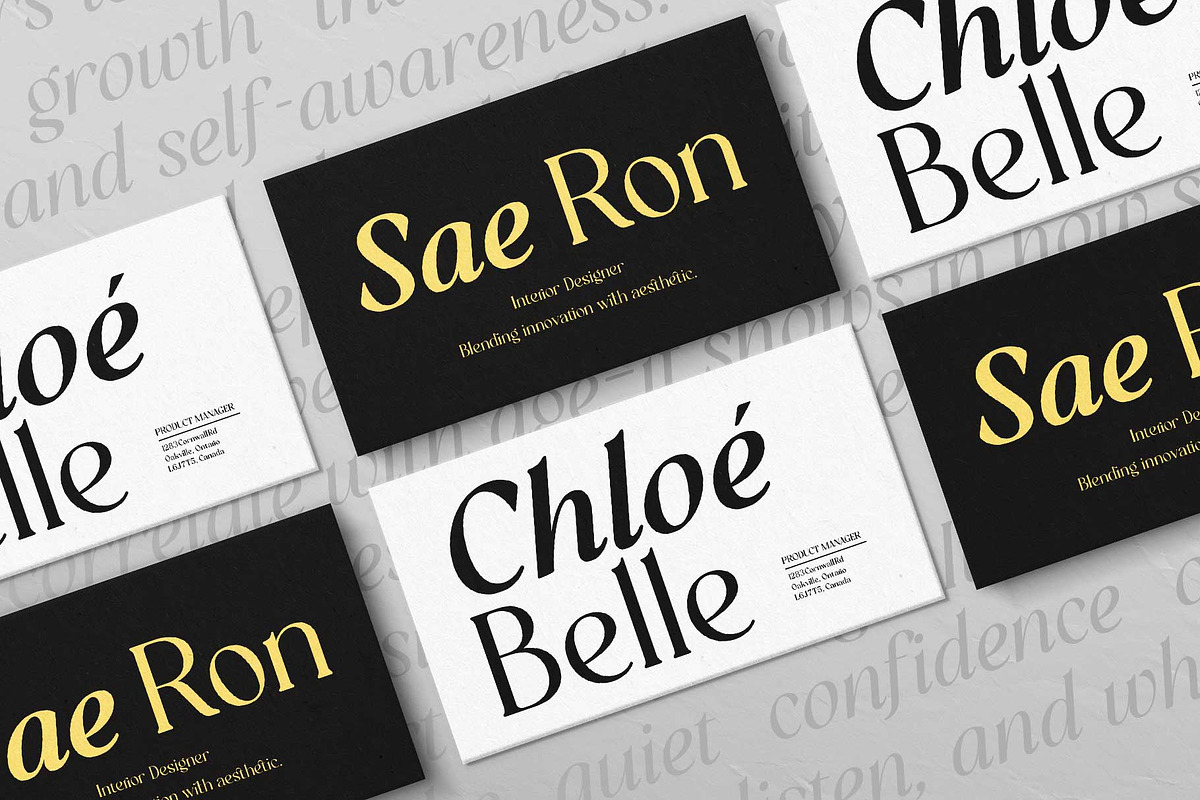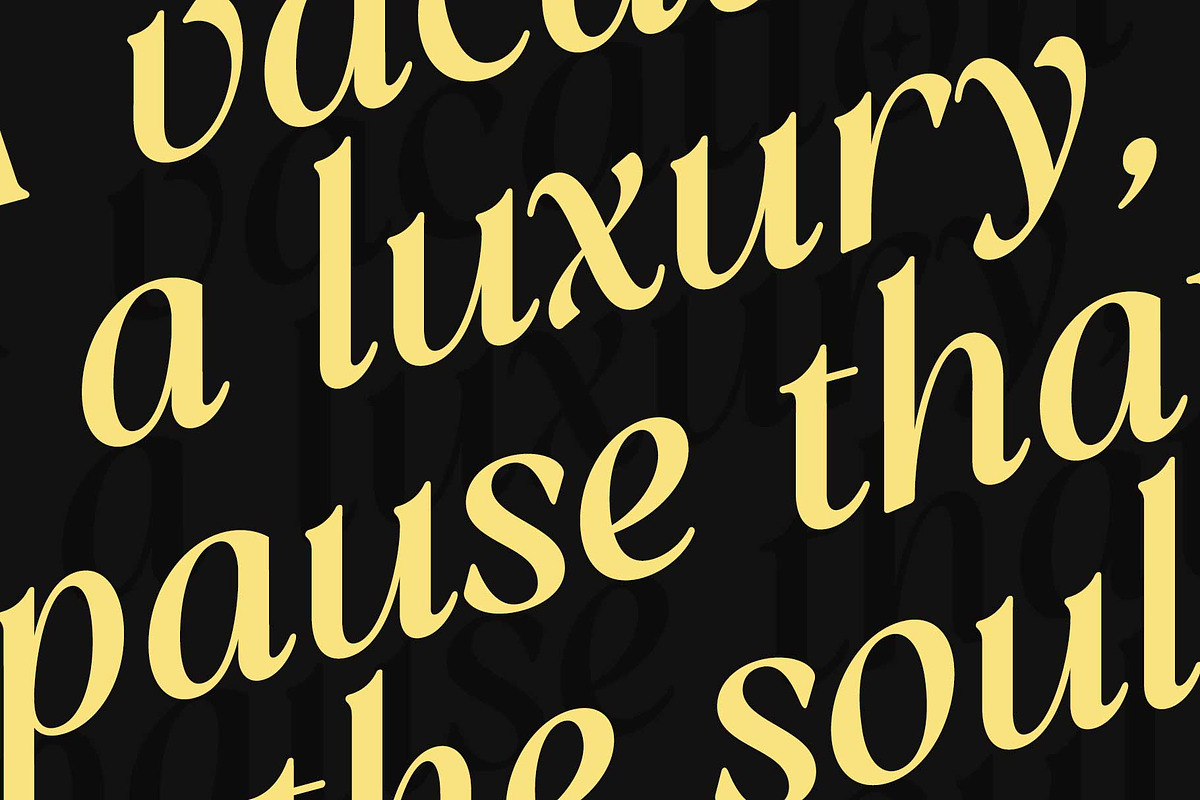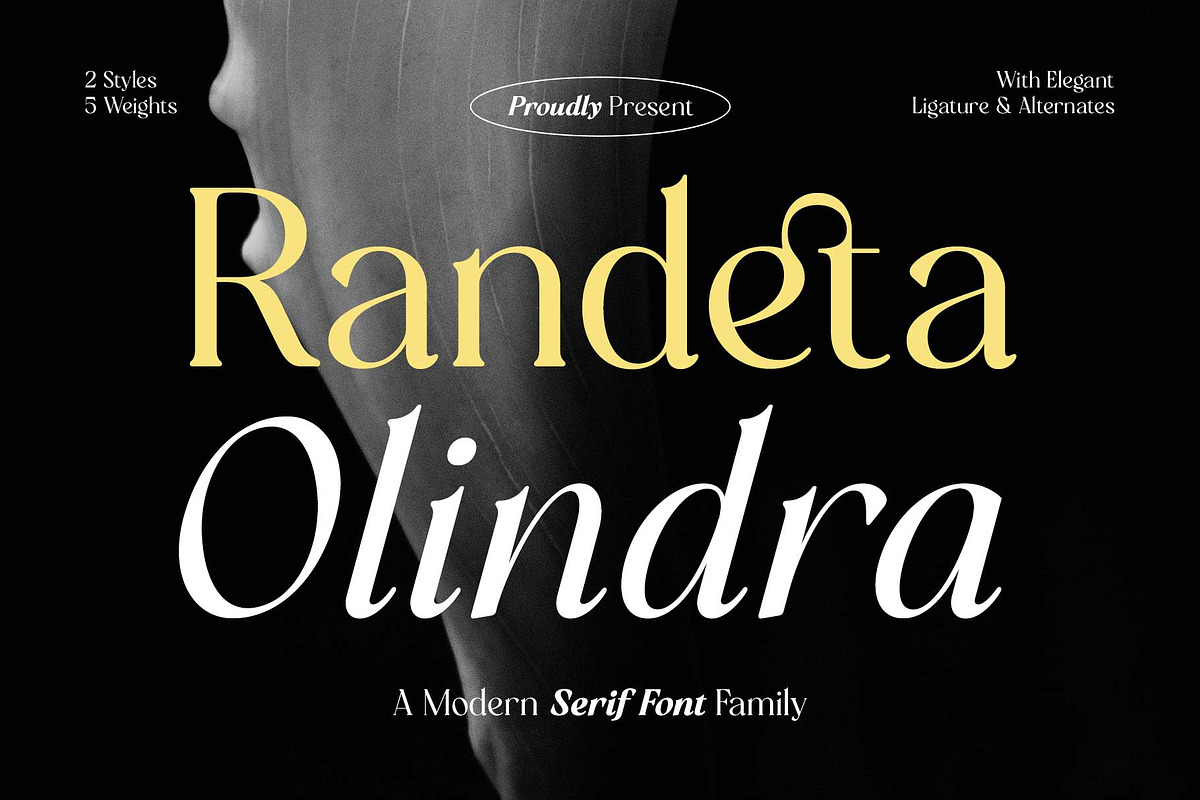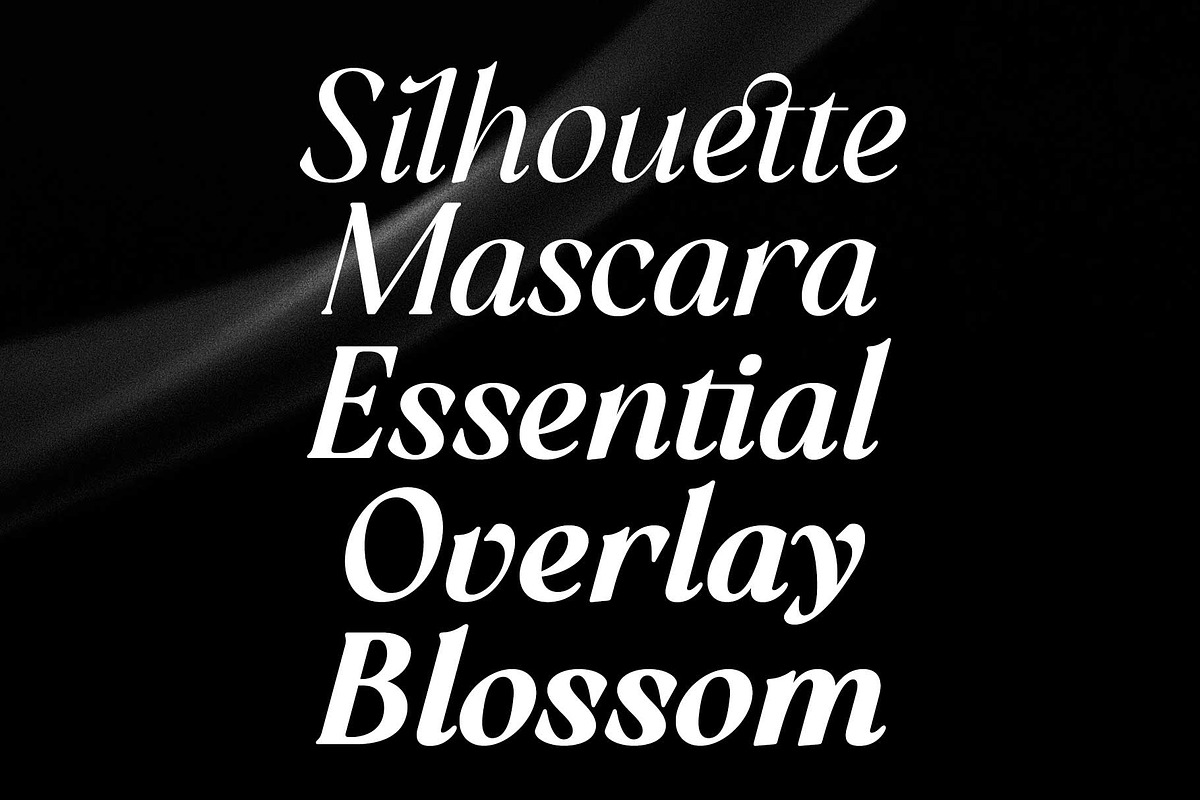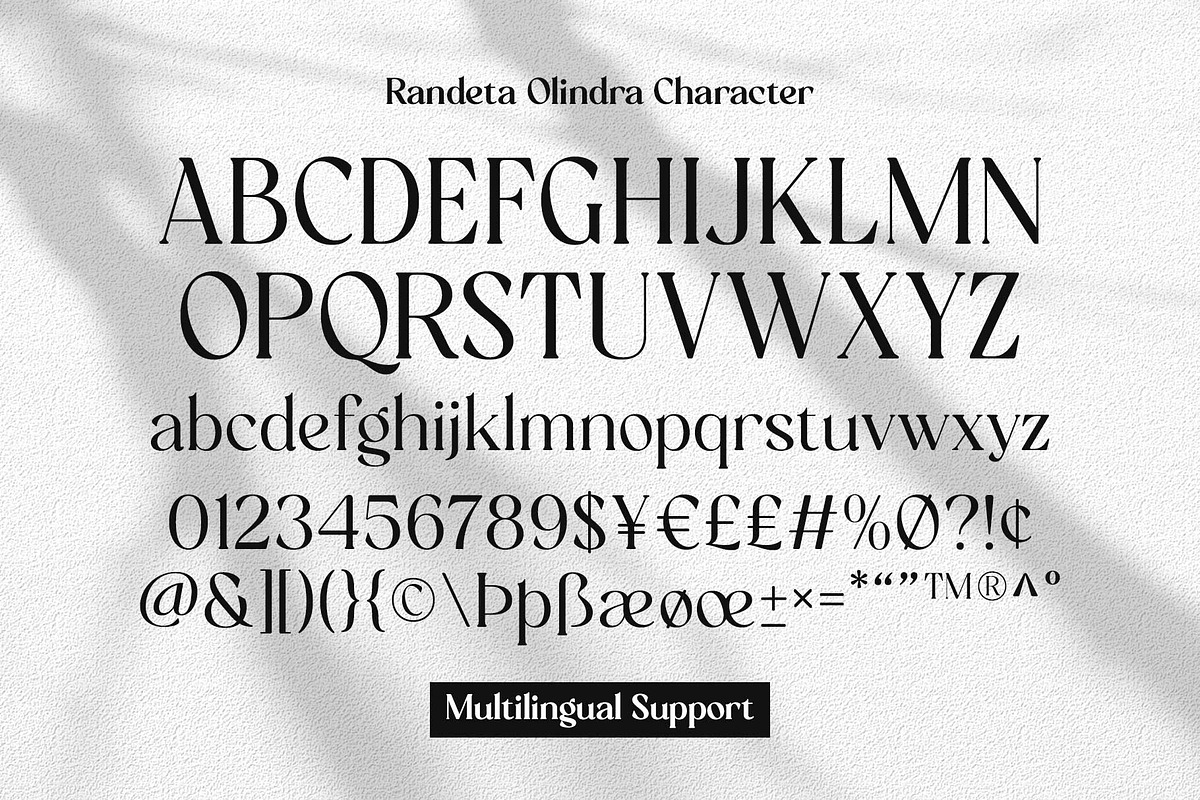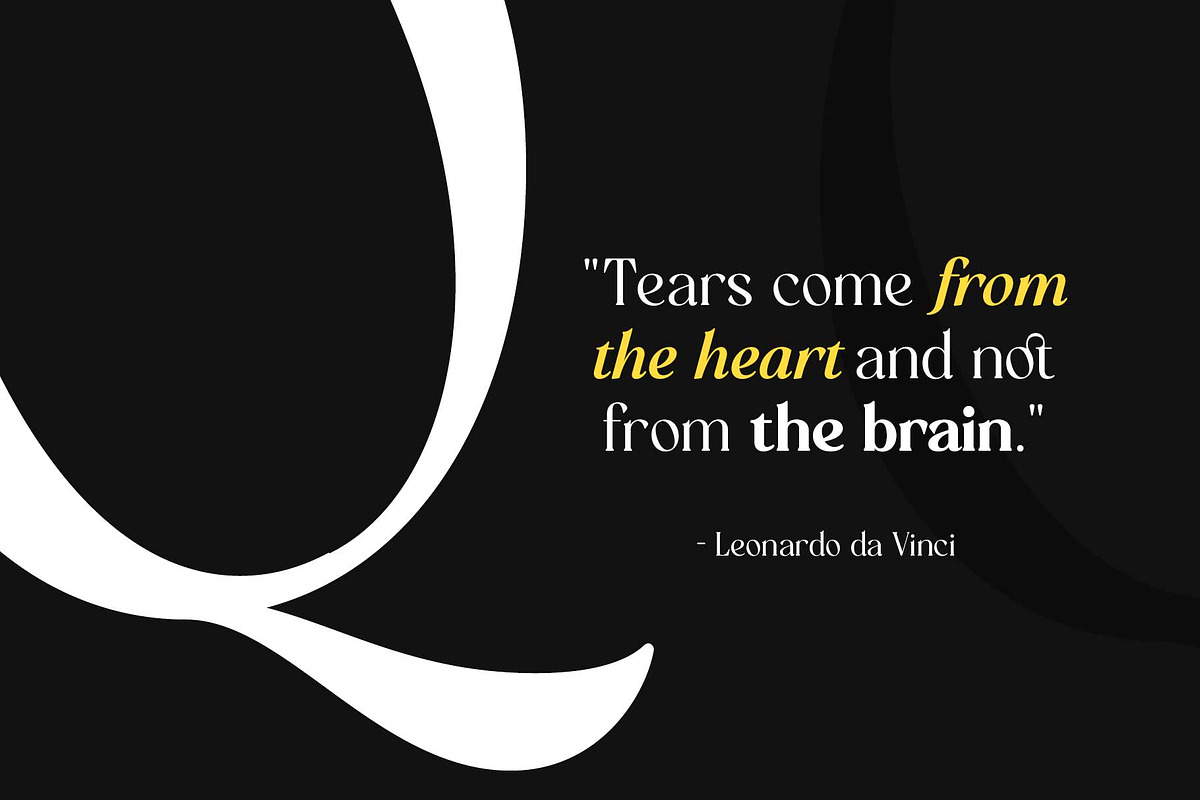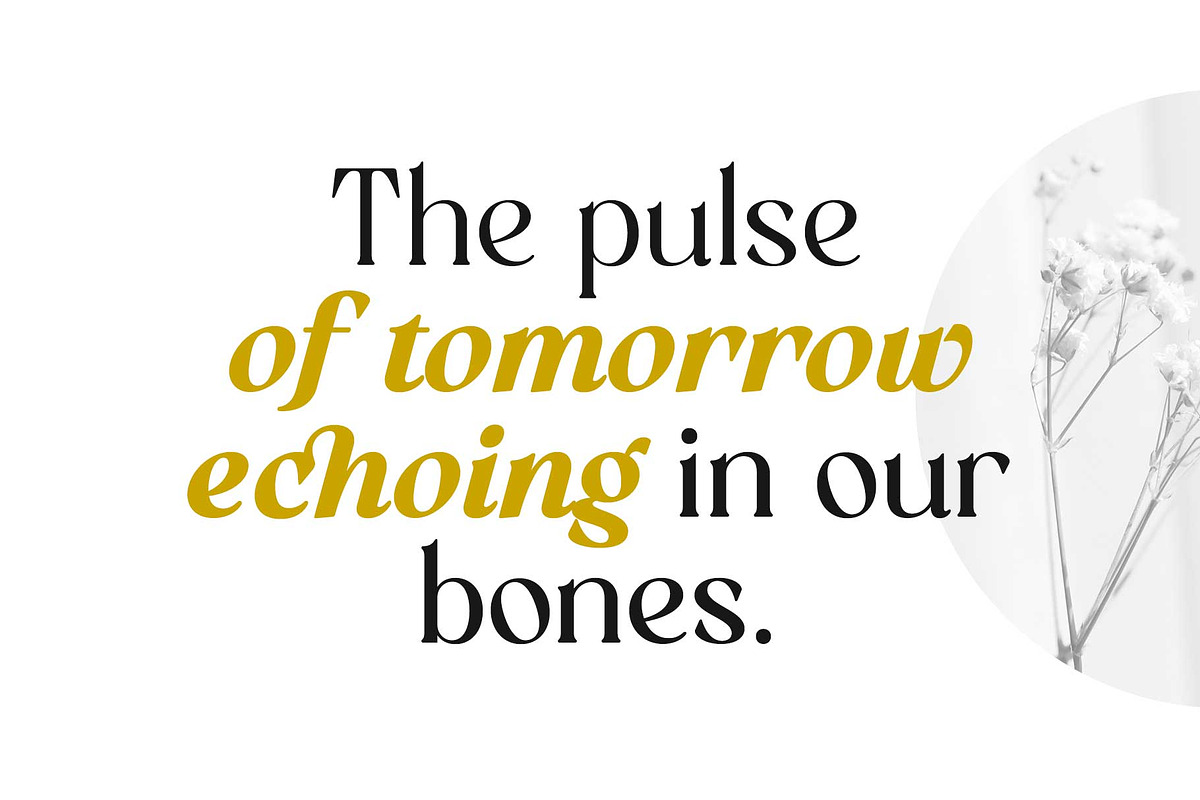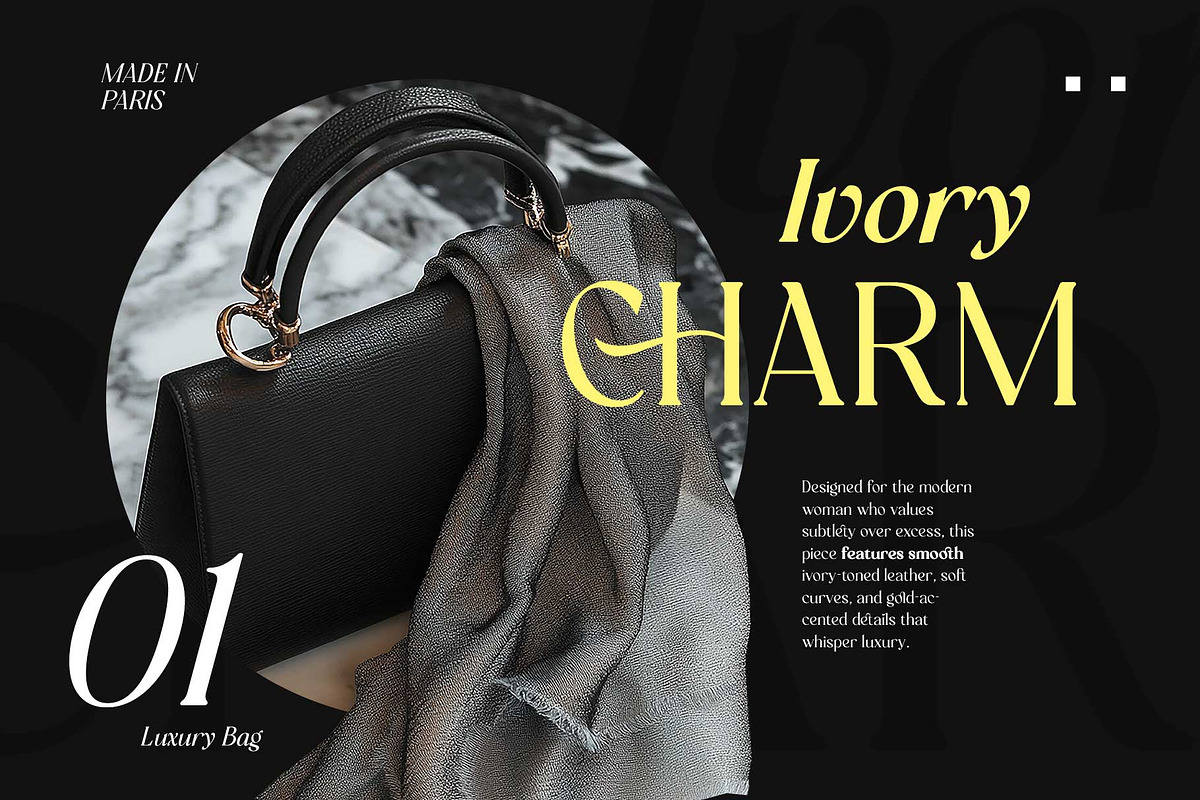
Randeta Olindra - Serif Family
Randeta Olindra is a sophisticated serif family featuring smooth curved edges and a modern letterform design you won’t want to miss. Perfect for both display and editorial use, Randeta Olindra offers 5 weights, each paired with a matching italic. It’s also equipped with casual ligatures and stylistic alternates, allowing you to create beautifully decorative typography with ease.
- 5 Weights : Regular, Medium, Semibold, Bold, Extrabold
- Italic with 5 weight also.
- Stylistic alternates
- Multilingual supports